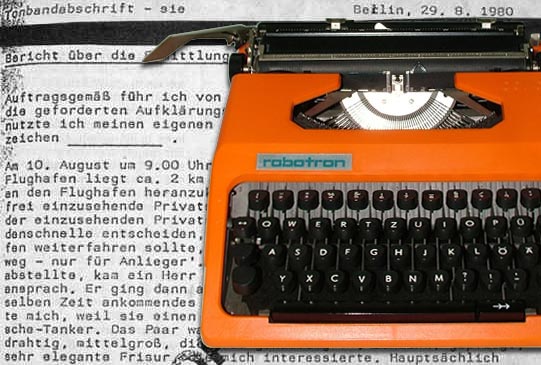
Font name: | Cella |
Author: | Volker Busse - F25 Digital Typeface Design |
The font of my old typewriter "Cella", made in the 80ies by Robotron, DDR. |